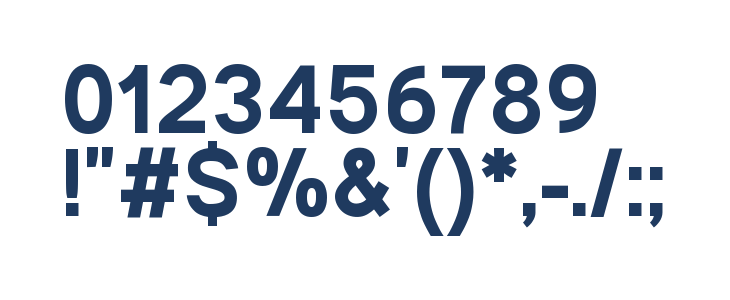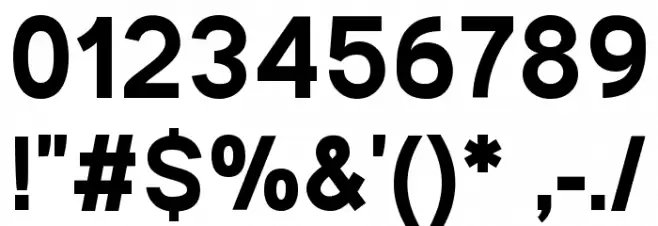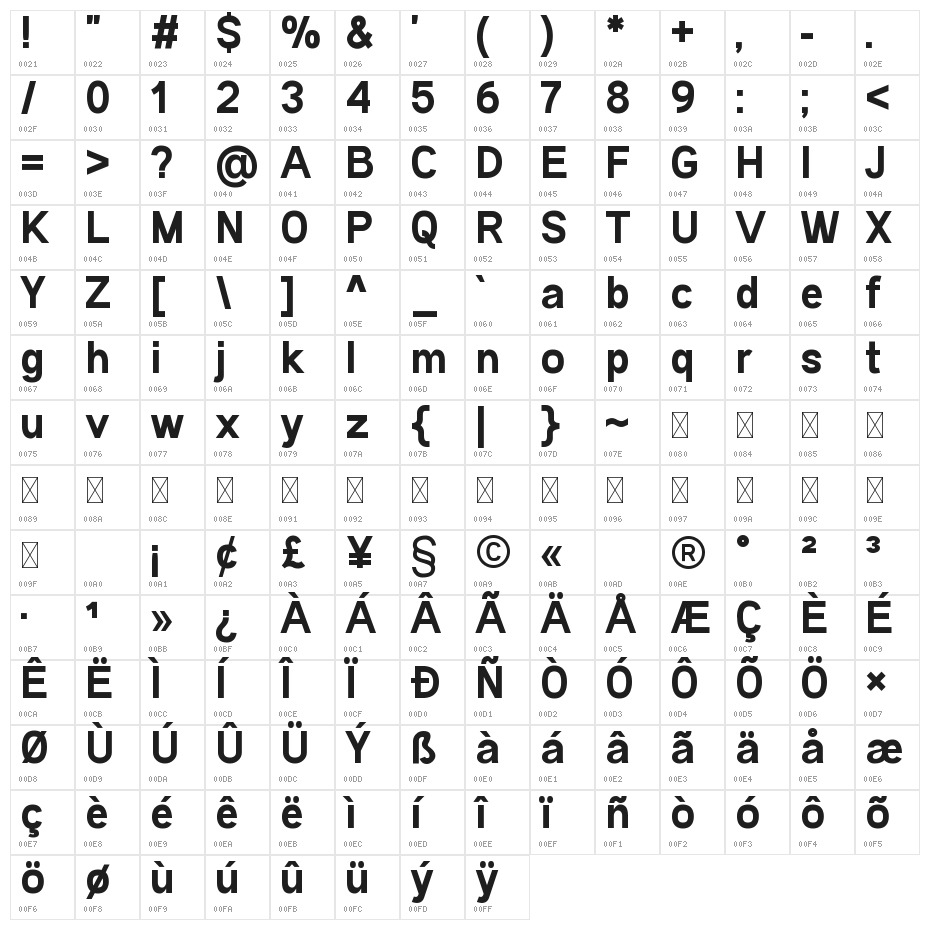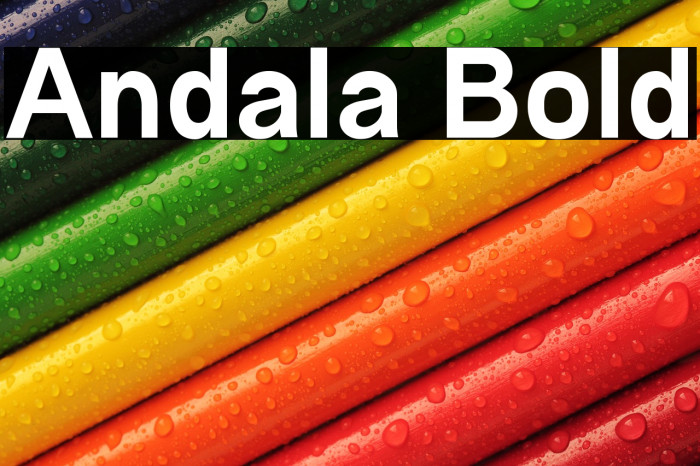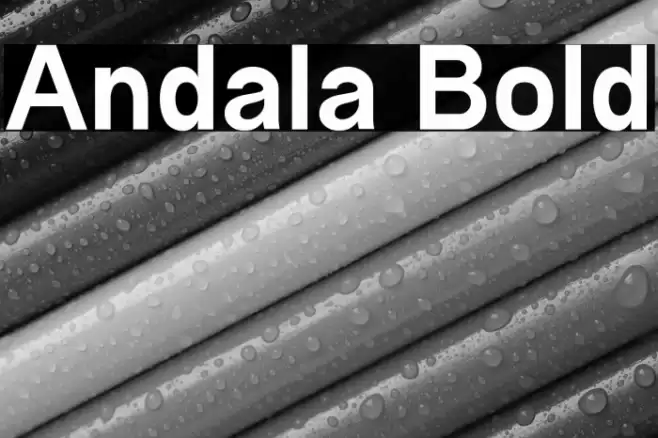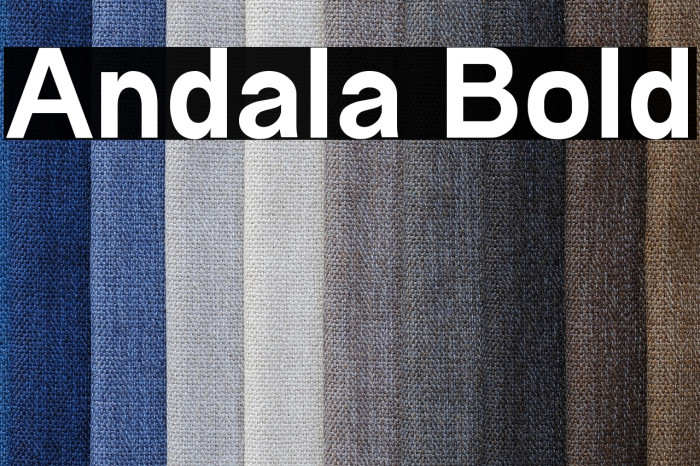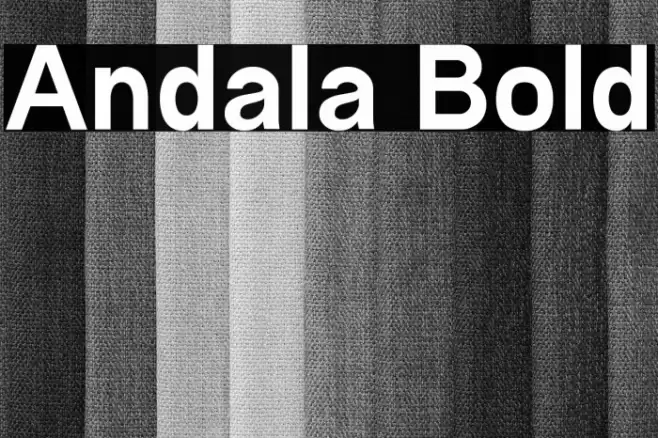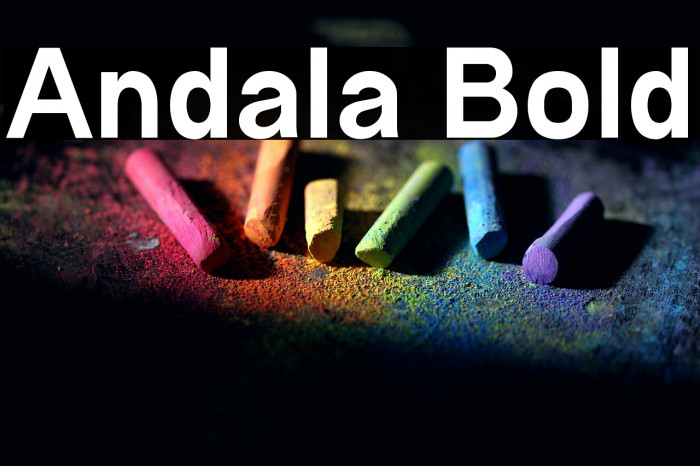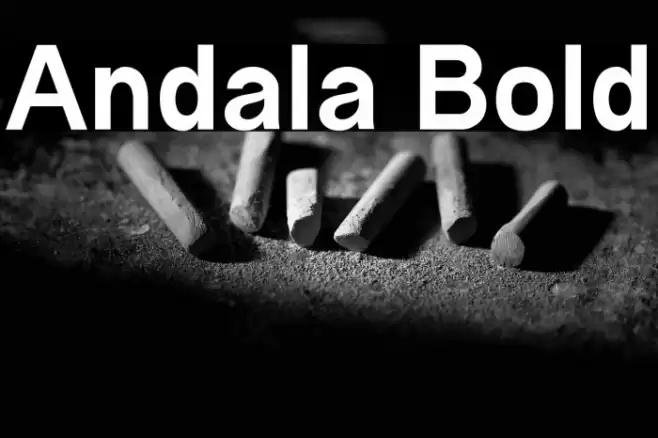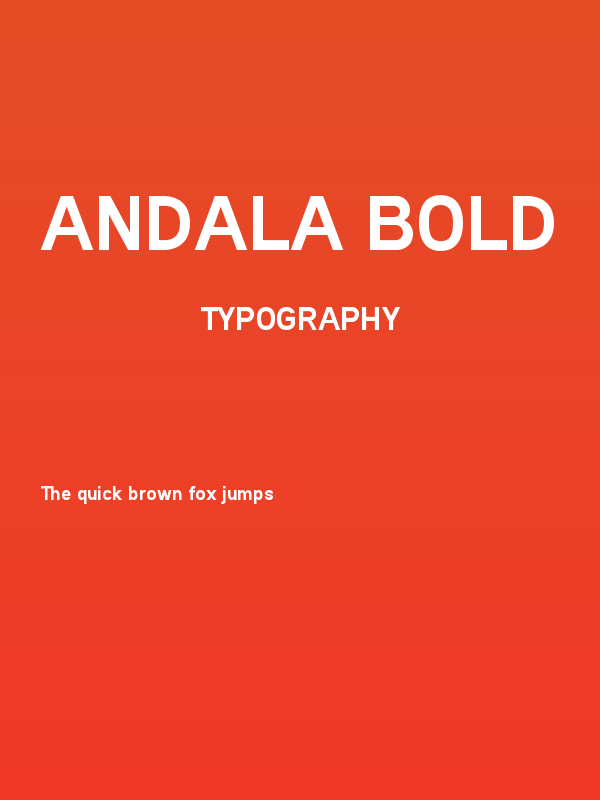
Andala Bold Font
Andala Bold Description
This font exhibits a bold and modern sans-serif style, characterized by its clean lines and uniform stroke thickness. The uppercase and lowercase letters are well-proportioned, offering a balanced and harmonious appearance. The numerals are clear and easily distinguishable, making them suitable for a variety of applications. Special characters are designed with the same boldness, ensuring consistency across all elements. The overall design is straightforward and impactful, making it ideal for projects that require a strong visual presence.
| Use Case | Headlines, Logos, Advertising |
| Proposed Projects | Ideal for branding, advertising, headlines, and digital media where a strong, modern look is desired. |